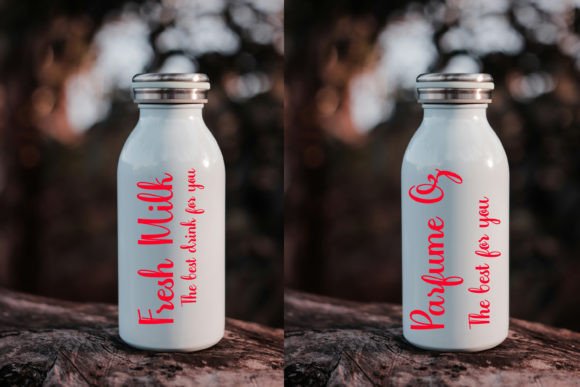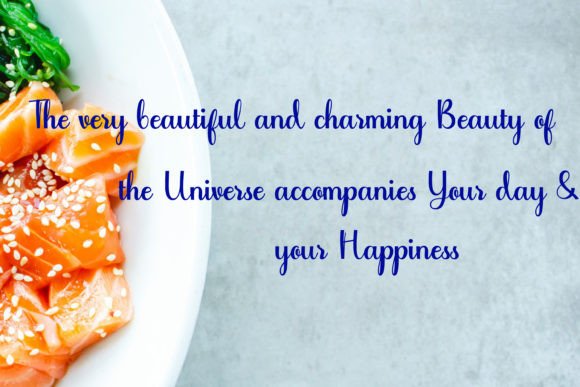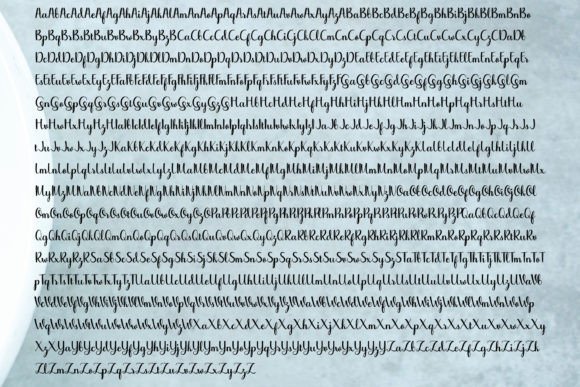
Introduction to Hand Script – F7 Series Font
Hand Script Font FS7 Series is a family font from FS7.
This font is made based on handwriting that is made digitally so that a font is created that can be used for various digital purposes This font is based on upright handwriting that has the characteristic of thickness in each font has a balanced stroke so that a series of art is created in writing.